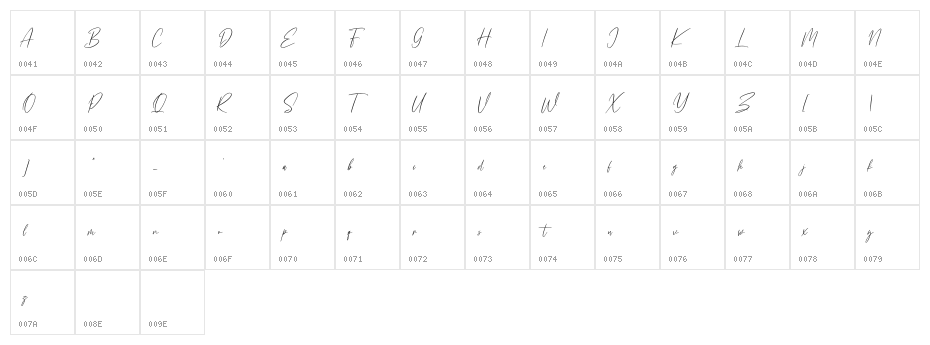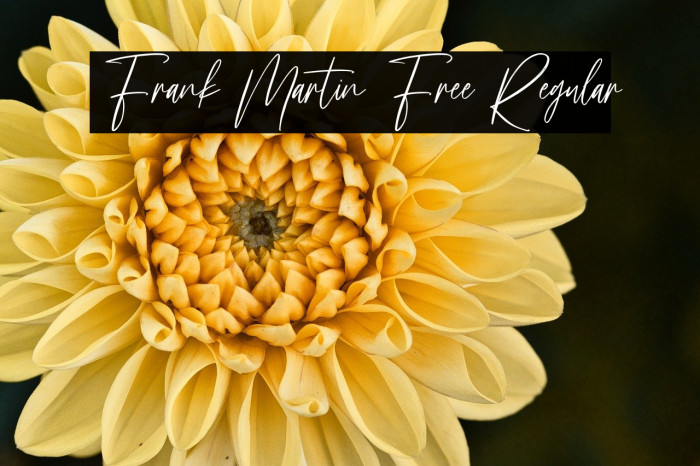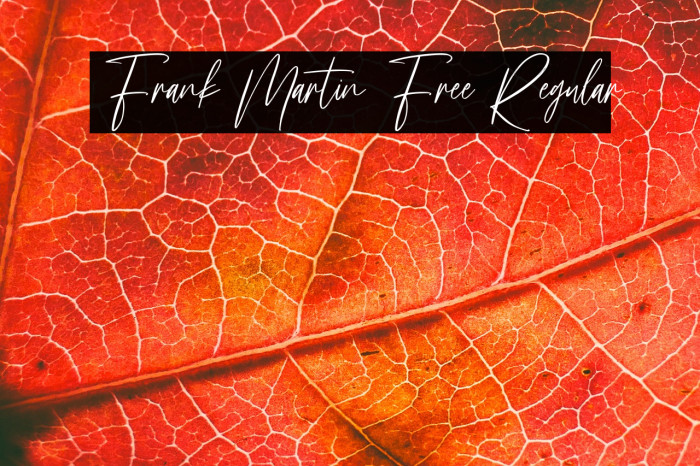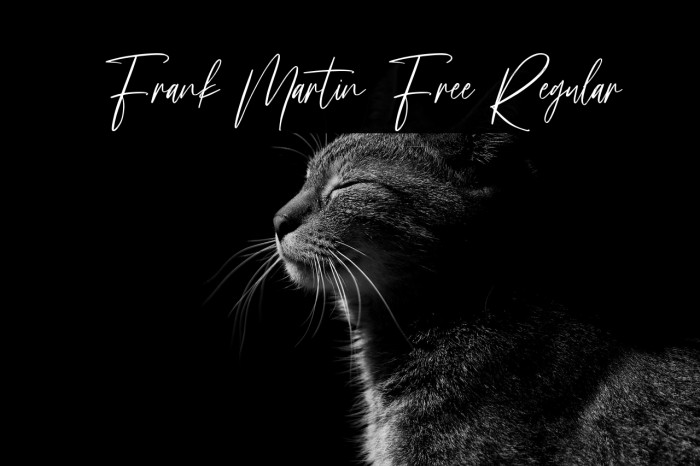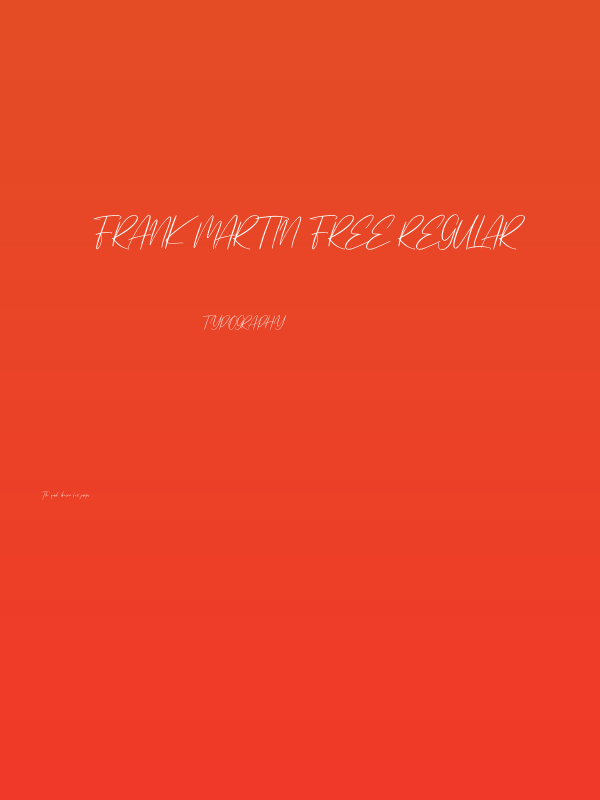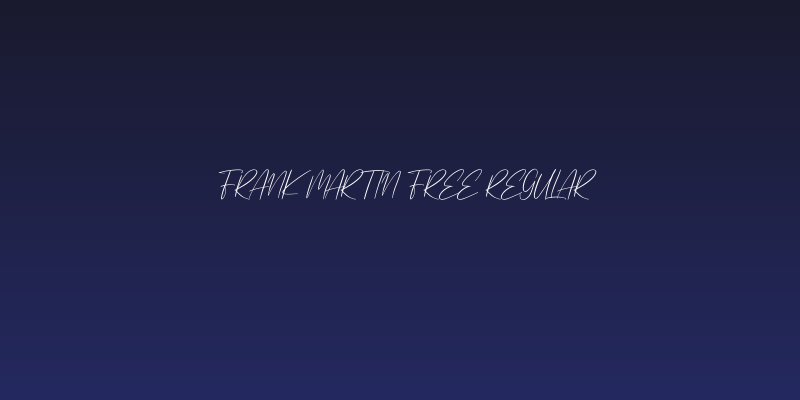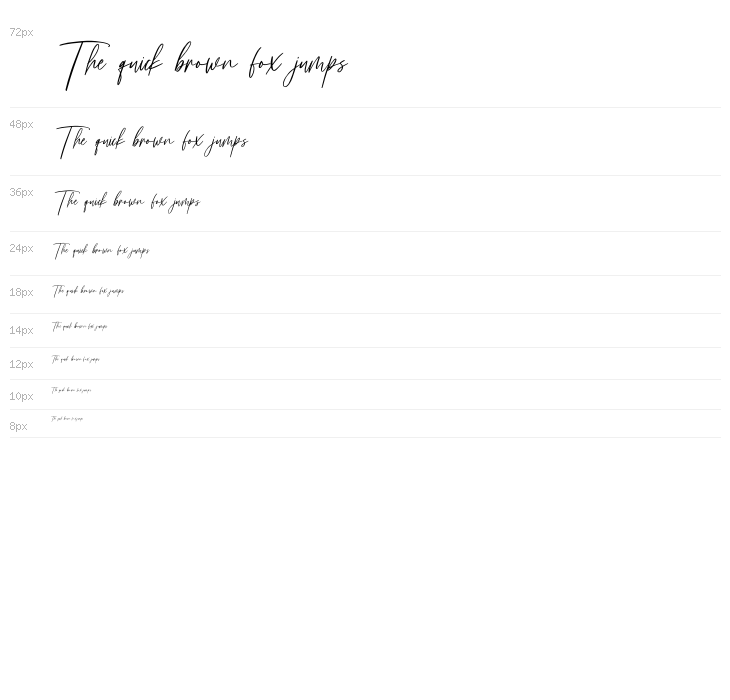
Frank Martin Free Regular Font
Frank Martin Free Regular Description
This font exhibits a modern, handwritten style with a flowing, cursive appearance. The characters are elegantly crafted with a natural, organic feel, characterized by smooth curves and varying line thickness. The uppercase letters are bold and slightly slanted, giving a dynamic and energetic look. The lowercase letters maintain a consistent style, complementing the uppercase with their fluidity and grace. The numbers and special characters follow the same aesthetic, ensuring a cohesive look across all glyphs. This font is perfect for projects that require a personal touch, such as invitations, greeting cards, or branding materials.
| Proposed Projects | Ideal for invitations, greeting cards, branding, and personal projects. |